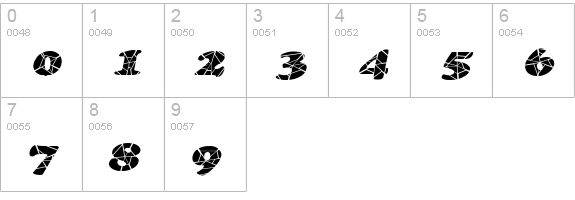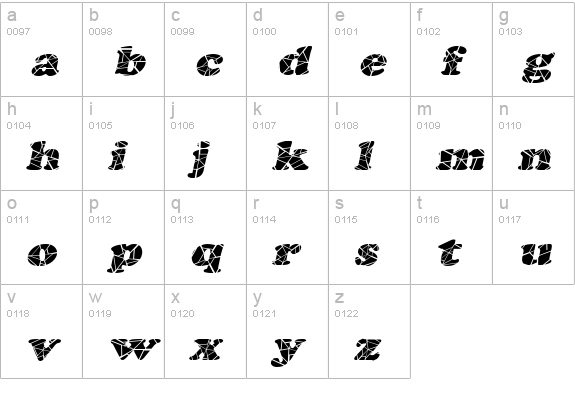
Marshmallow Cracked-Extended Italic is a distinctive, extended-width, italic variant in the Marshmallow typeface family \xE2\x80\x94 well suited to design and typography projects.
Marshmallow Cracked-Extended Italic is a visually captivating and unique font that is sure to make a statement in any design project. The cracked texture adds a touch of edginess and character to the letters, creating a sense of depth and intrigue. The extended italic style of the font gives it a sleek and modern look, perfect for adding a contemporary twist to your designs. This font is not only visually stunning, but it is also incredibly versatile. Whether you're creating a logo, designing a poster, or crafting a website, Marshmallow Cracked-Extended Italic will elevate your design to the next level. Its bold and distinctive appearance will capture the attention of viewers and leave a lasting impression. And the best part? Marshmallow Cracked-Extended Italic is absolutely free to download! You can easily access this font at FontsMarket.com, where it is available for download without any cost. This means that you can use this incredible font in all your personal and commercial projects without breaking the bank. So why wait? Enhance your designs today with Marshmallow Cracked-Extended Italic, the freely available font that will add a touch of uniqueness and style to your creations. Download it now at FontsMarket.com and unleash your creativity!